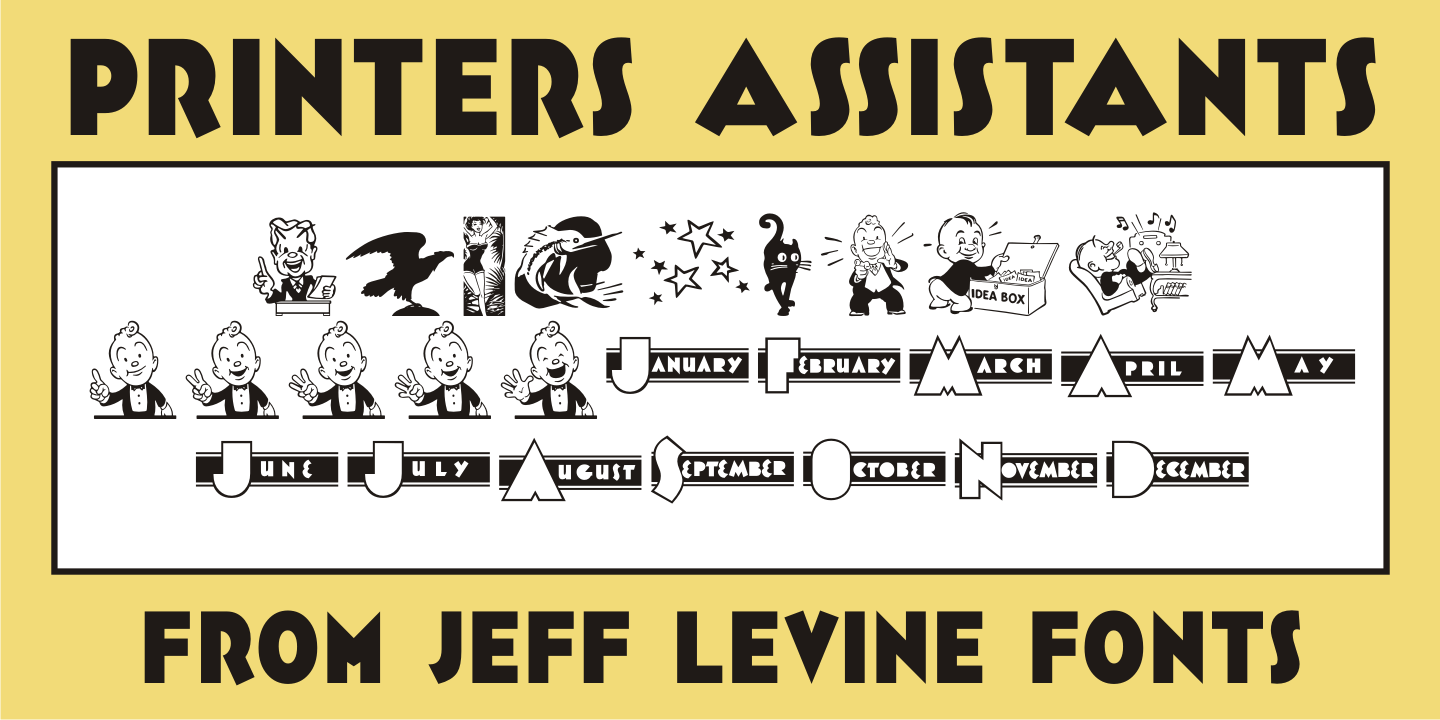
Printers Assistants
Printers Assistants JNL is a collection of vintage letterpress stock cuts and embellishments features monthly title blocks (for newsletters or calendars of events) in an Art Deco style, a cartoon character counting [with fingers] one through five to emphasize selling points and assorted cartoons and decorations sure to please any lover of nostalgic art.